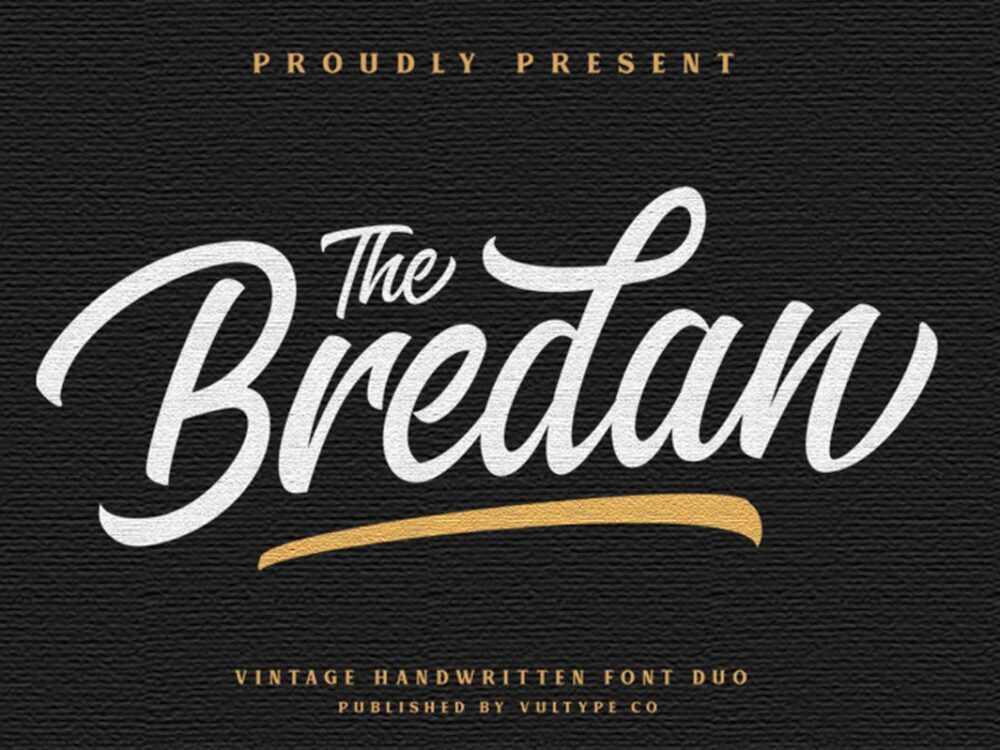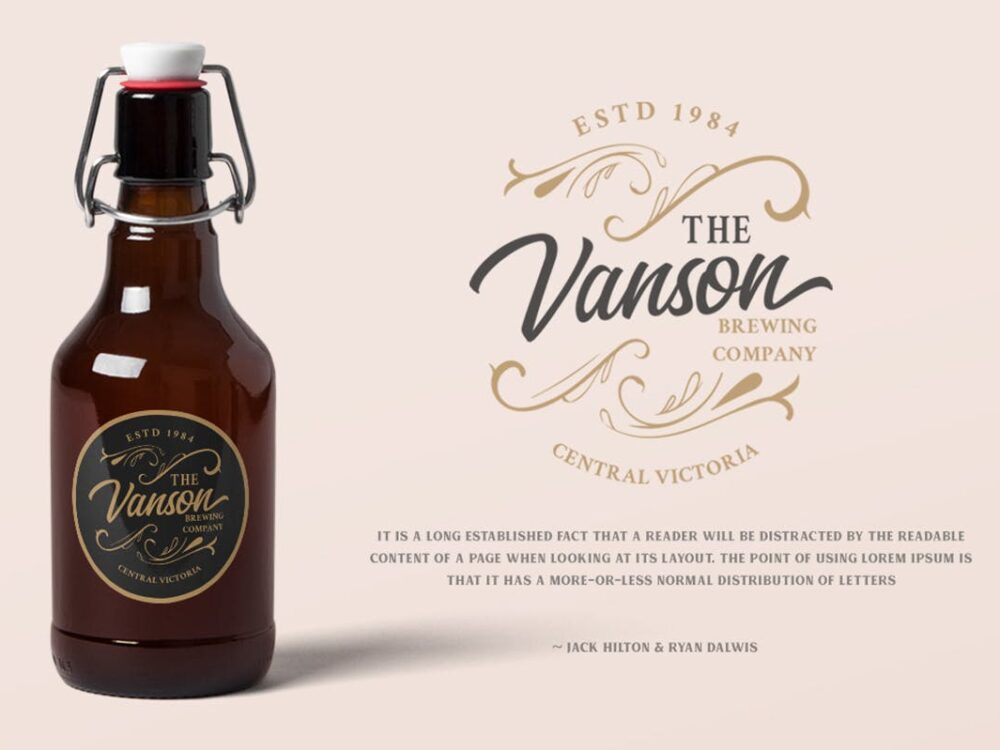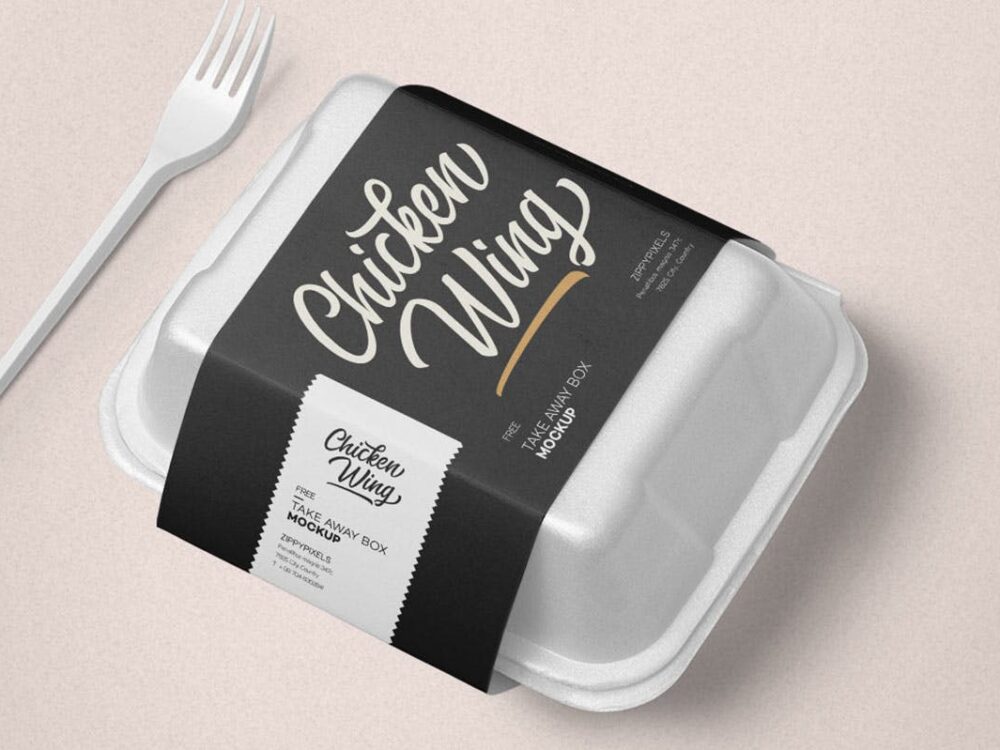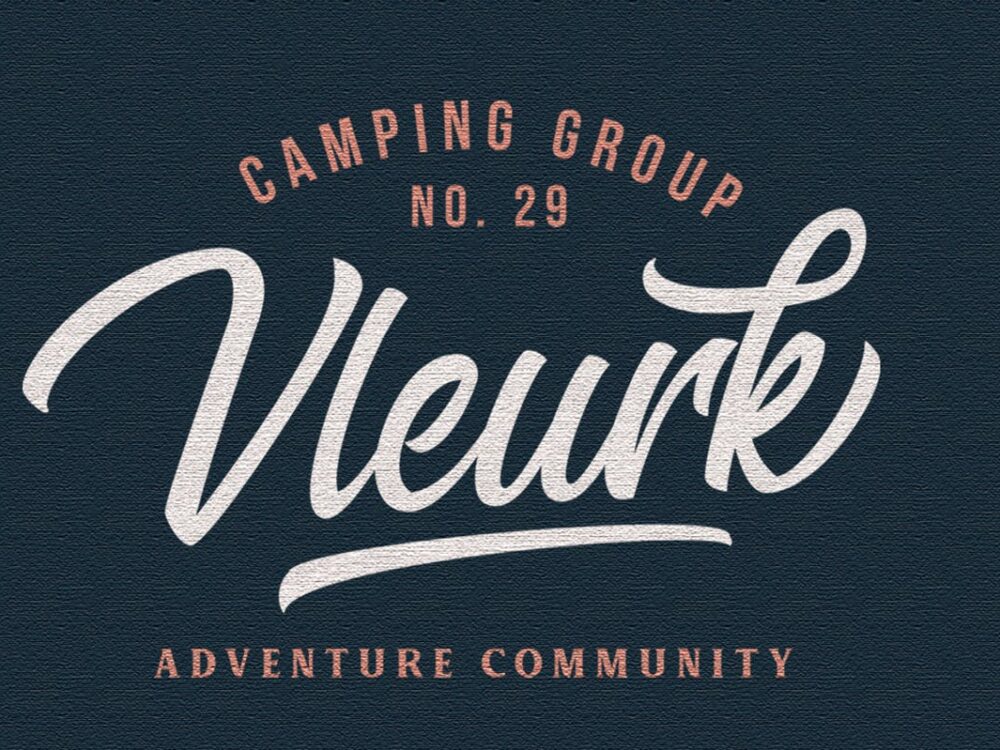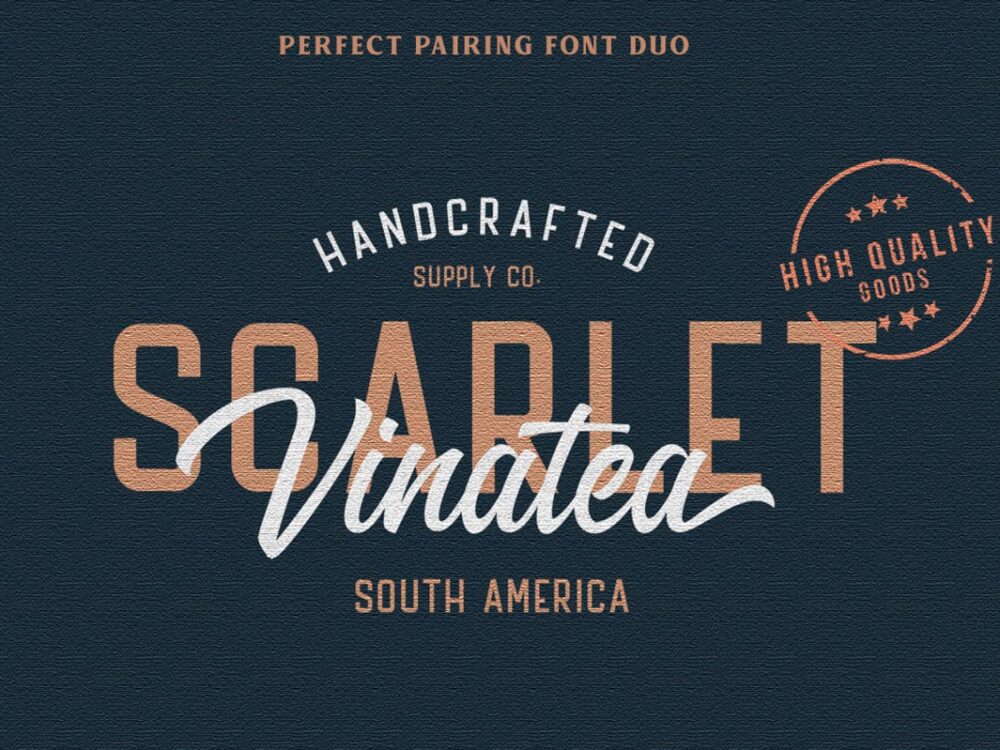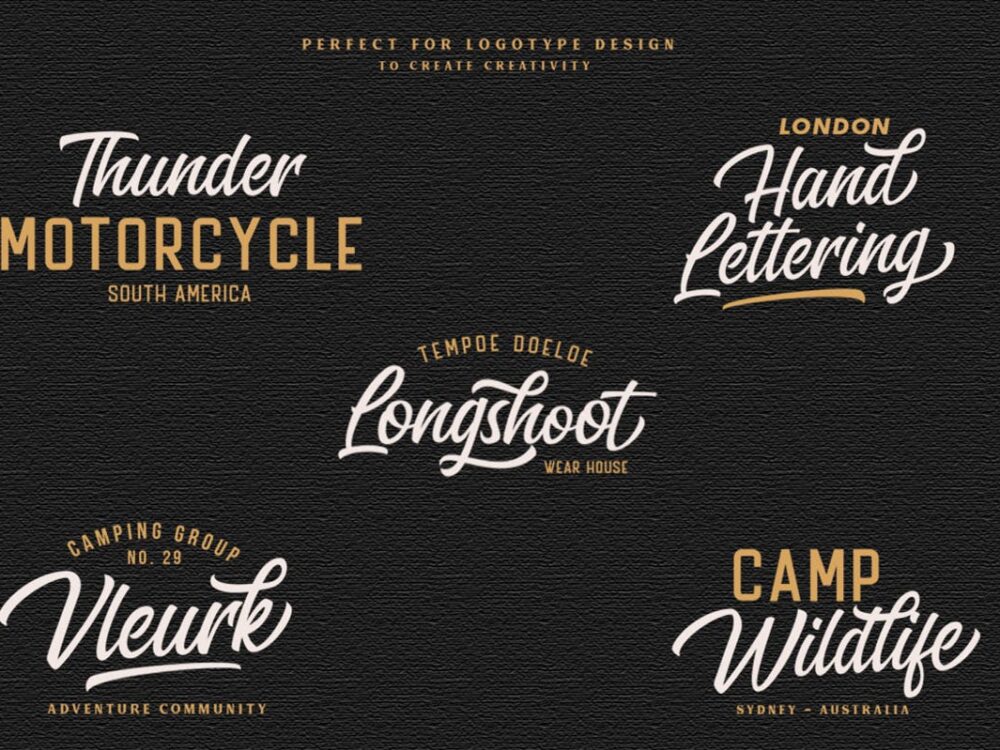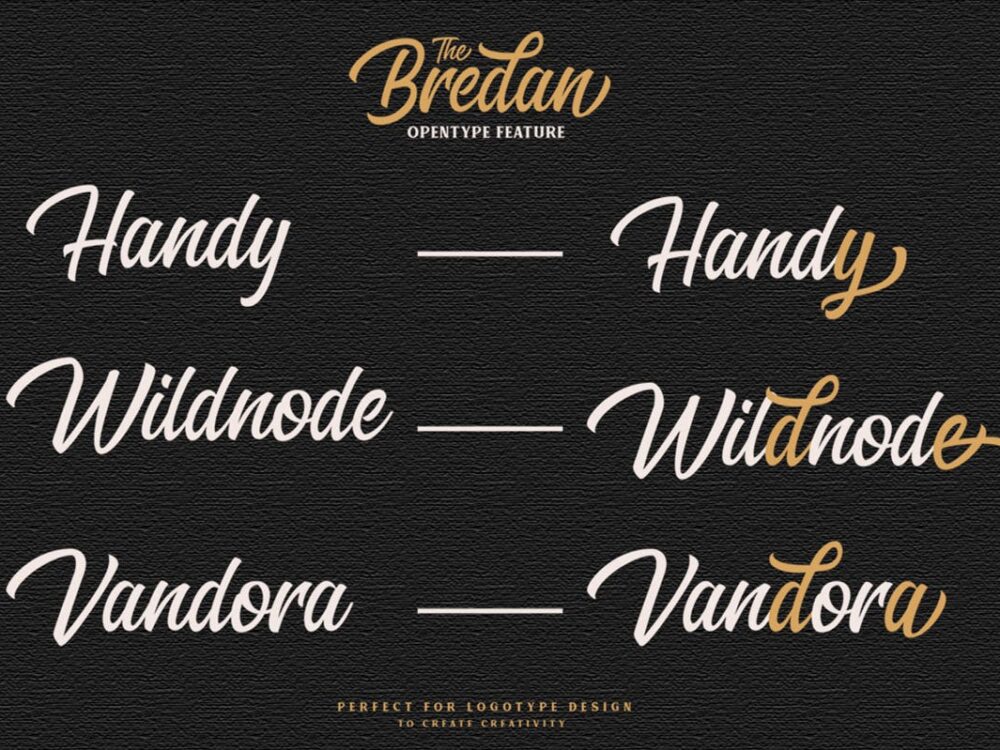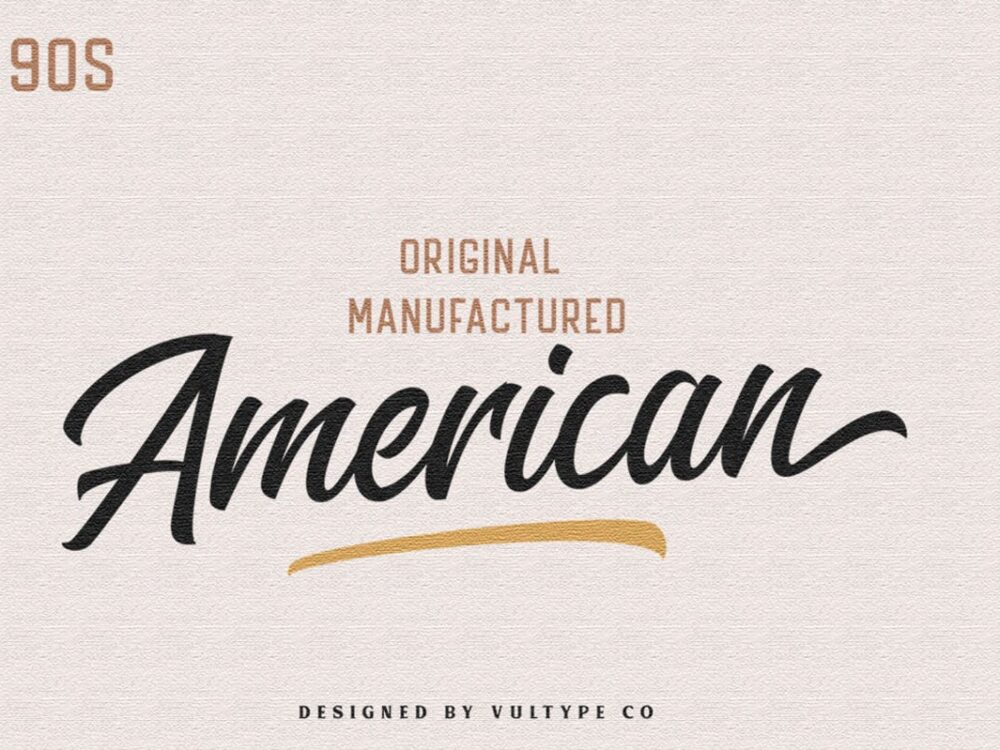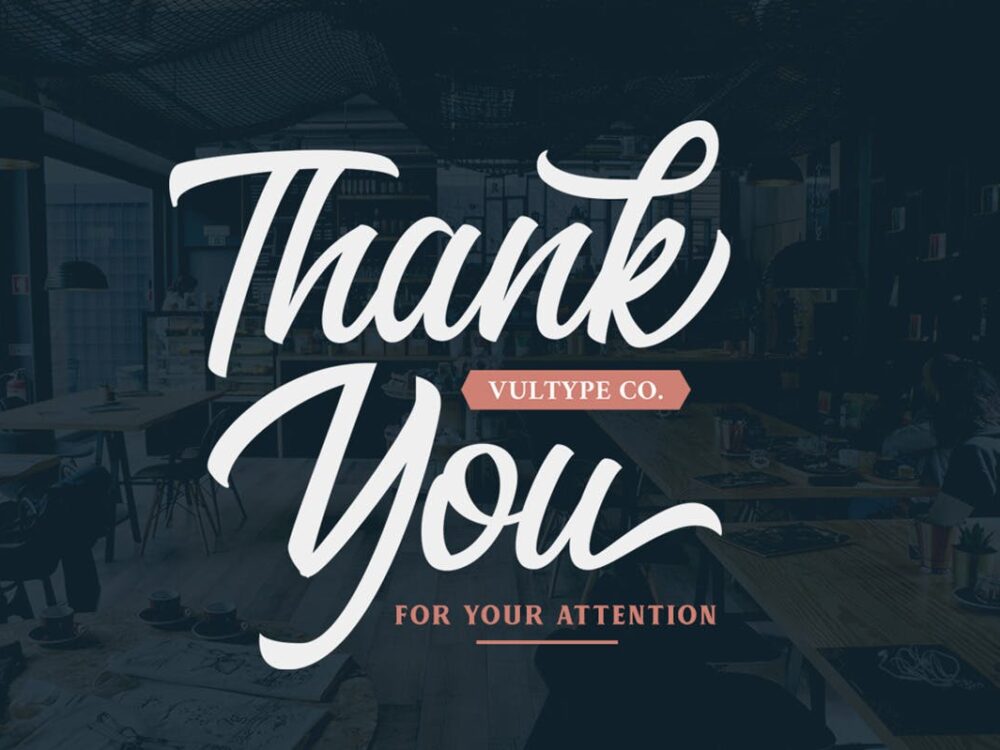
Free The Brendan Script Font
Free Script Font
We invite you to try a beautiful modern script font called Frey The Brendan Script Font. It comes with several glyph styles to help make your design projects unique. From vintage designs to logos, this typeface does a great job at these challenges. So, if you wish to access more features and use it for commercial work, go get the premium version as well.